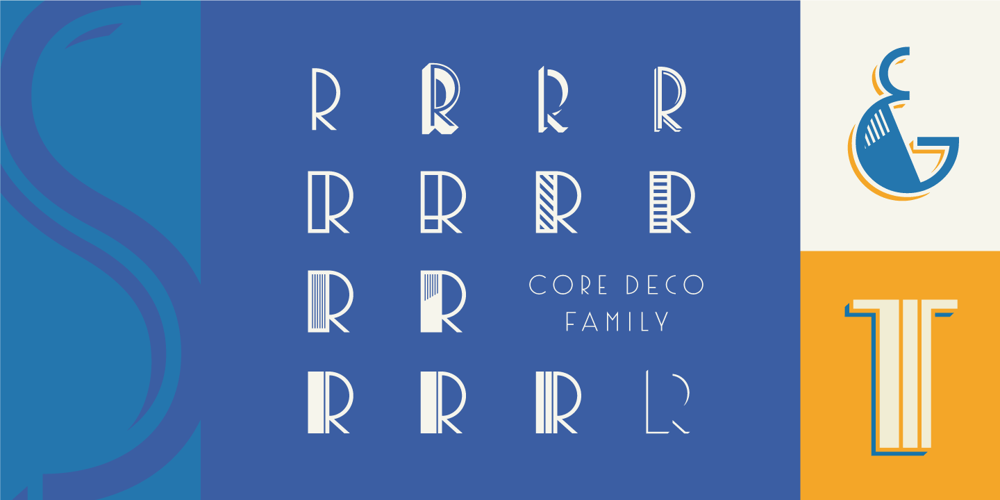
Core Deco
Core Deco font
Core Deco Font Family was designed by Hyun-Seung Lee, Dae-Hoon Hahm, Minjoo Ham and published by S-Core. Core Deco contains 14 styles and family package options. Core Deco is font family inspired by Art Deco posters from 1920s, ’30s, and ’40s. The font family is anchored by two fonts: Core Deco, an elegant monolinear update of Art Deco lettering, and Core Deco C1, a vivacious weighted counterpart. Both channel the era’s affinity for geometry and are accompanied by a host of alternate styles. Three variants of Core Deco (A1–A3) offer drop-shadow options on the monolinear style. Eight variants of C1 (B1–B6 and C2–C3) offer contemporary takes on Art Deco outlining and shading of weighted strokes. One variant (C4) offers a drop-shadow only option that may be layered with any of the weighted fonts. The Core Deco family supports complete Latin 1252, Central European 1250, and Turkish 1254 character sets. If you are looking for an Art Deco–style style font which is modern and immediately usable in various artworks, get this family!